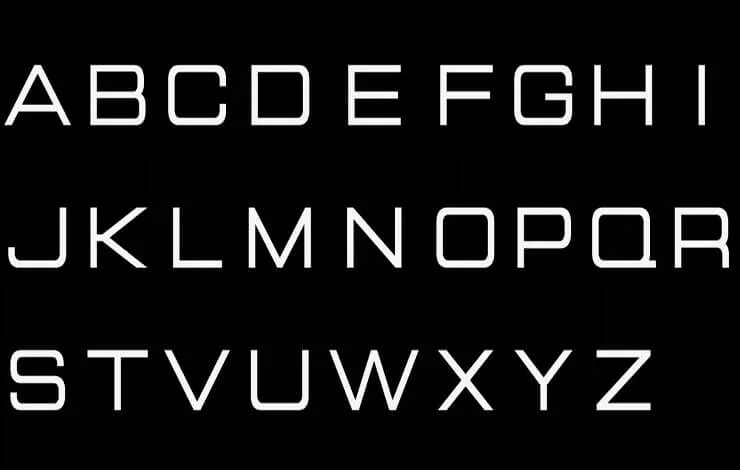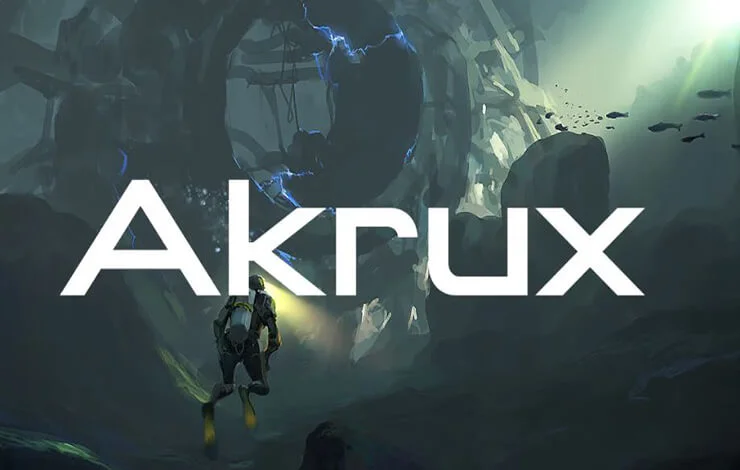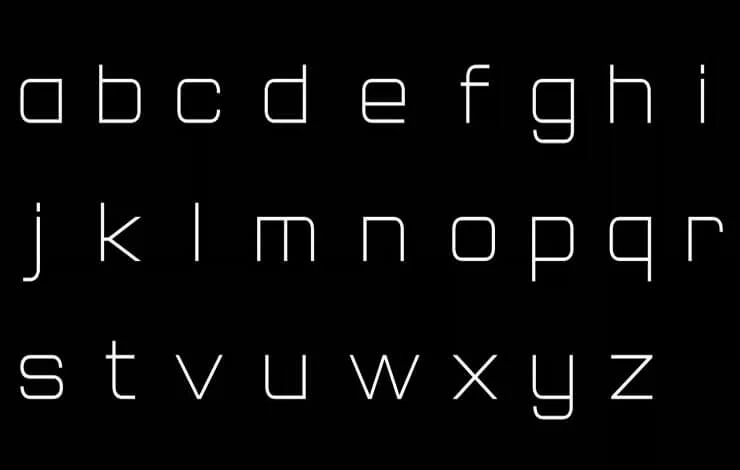
Akrux Font is a modern futuristic wide typeface that’s perfect for a wide range of design projects. That was created by Eugene Bunin and published by Eugene Bunin.
The font features clean lines and a minimalistic design that makes it easy to read and visually appealing. It’s a great choice for branding, advertising, packaging, and more.
It comes in a range of weights, from thin to bold, making it easy to customize to fit your specific needs. The font also has a full set of uppercase and lowercase letters, as well as numerals and punctuation marks.
So, we can say that Akrux Font is a great choice for anyone who wants to add a touch of modern elegance to their designs.
| Font Name: | Akrux Font Family |
| Style: | Fancy, Display, Futuristic |
| Font Designer: | Eugene Bunin |
Its clean lines, minimalistic design, and versatility make it a standout choice for any project.
You can use this futuristic typeface for various purposes. For example, creating video titles, designing logos, and headlines, printing on t-shirts, advertisements, social media posters, banners, headers, signs, flyers, brochure layouts, titles, website layouts, templates, printing on business cards, etc.